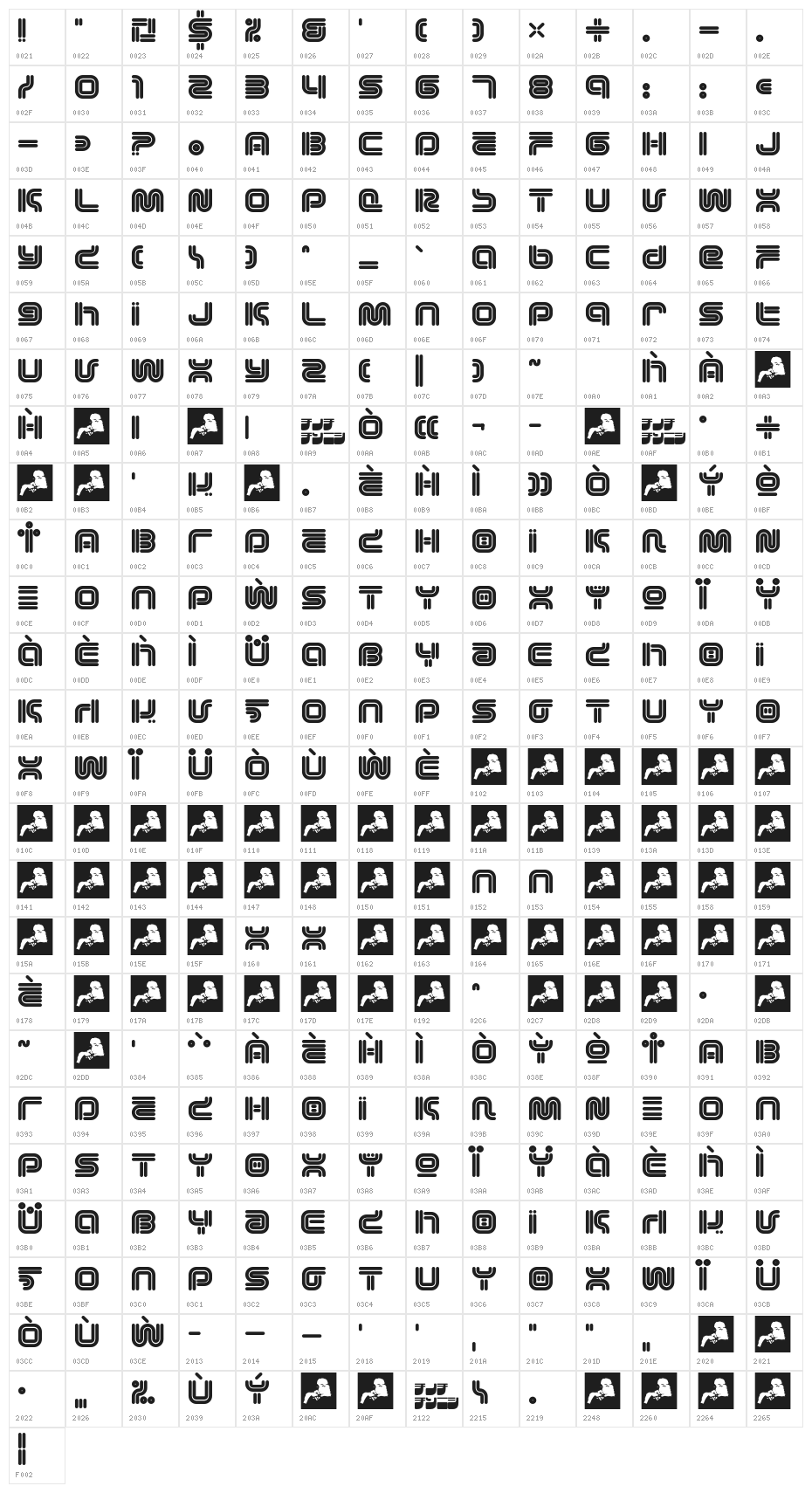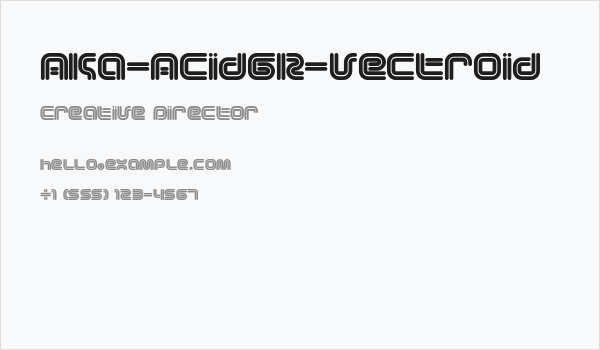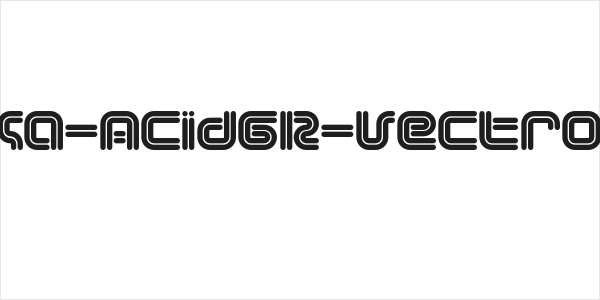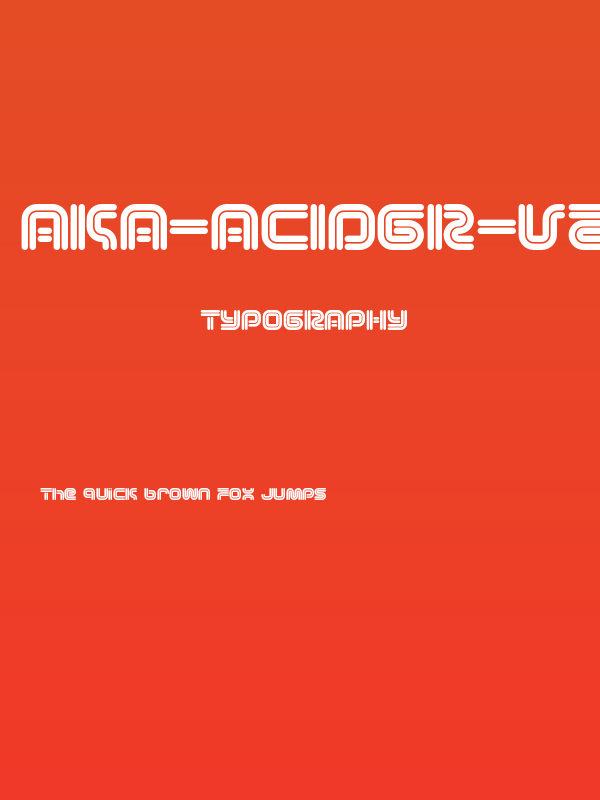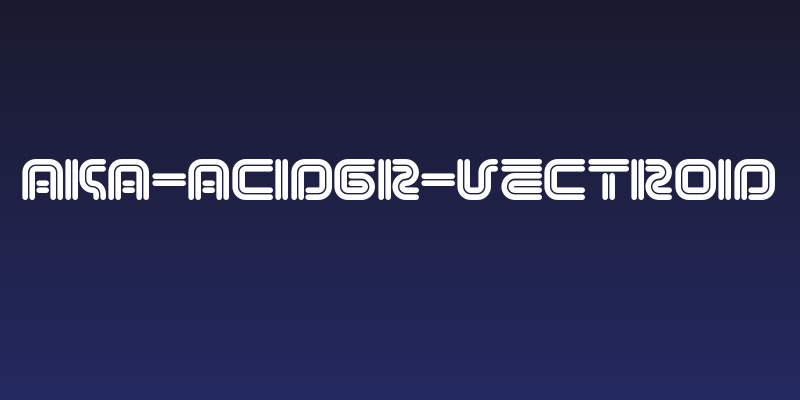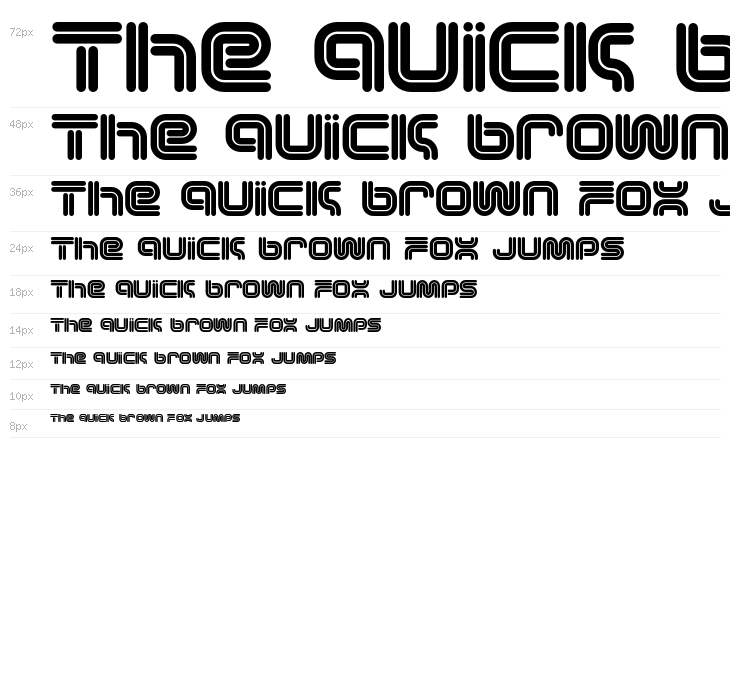
Aka-AcidGR-Vectroid Font
This font features a futuristic and geometric design with a distinct triple-line structure that gives it a bold and dynamic appearance. Each character is crafted with precision, creating a sense of movement and energy. The uppercase and lowercase letters maintain a consistent style, while the numerals and special characters complement the overall aesthetic. The font's unique design makes it stand out, ideal for projects that require a modern and edgy look.
| Proposed Projects | Ideal for sci-fi themed designs, tech branding, video game titles, and modern posters. |